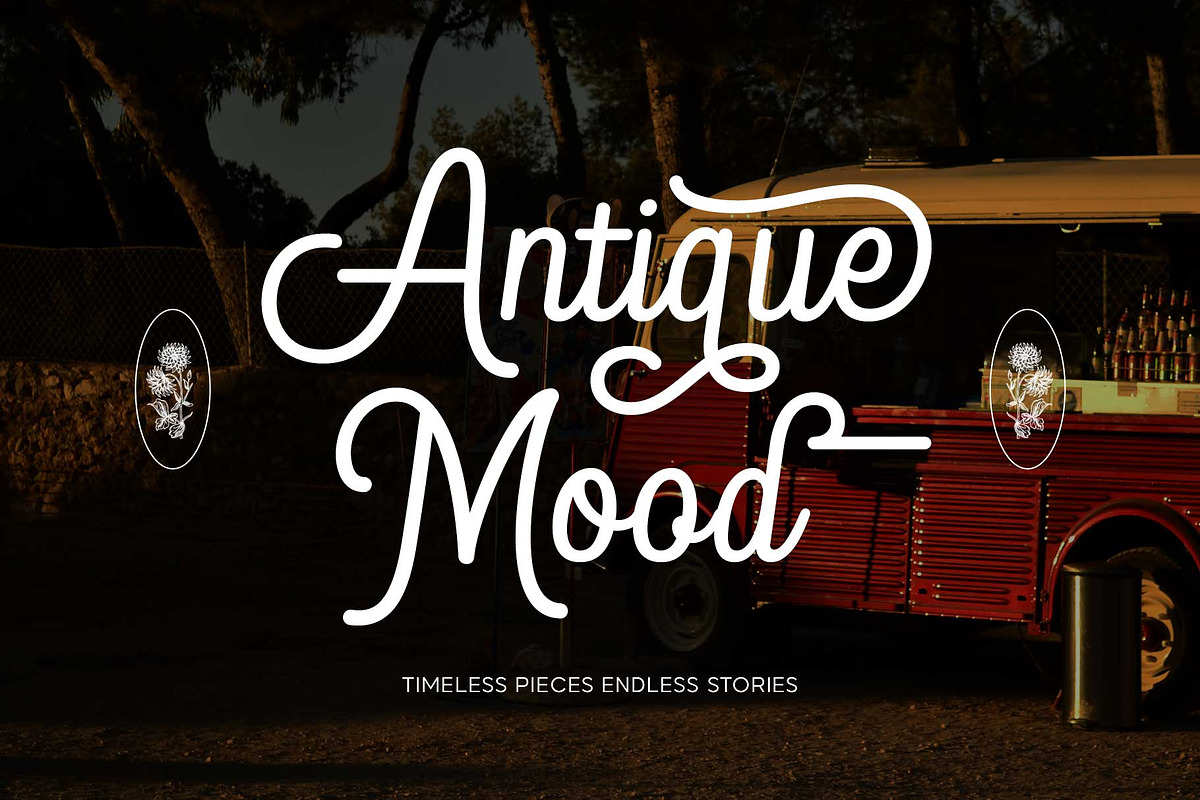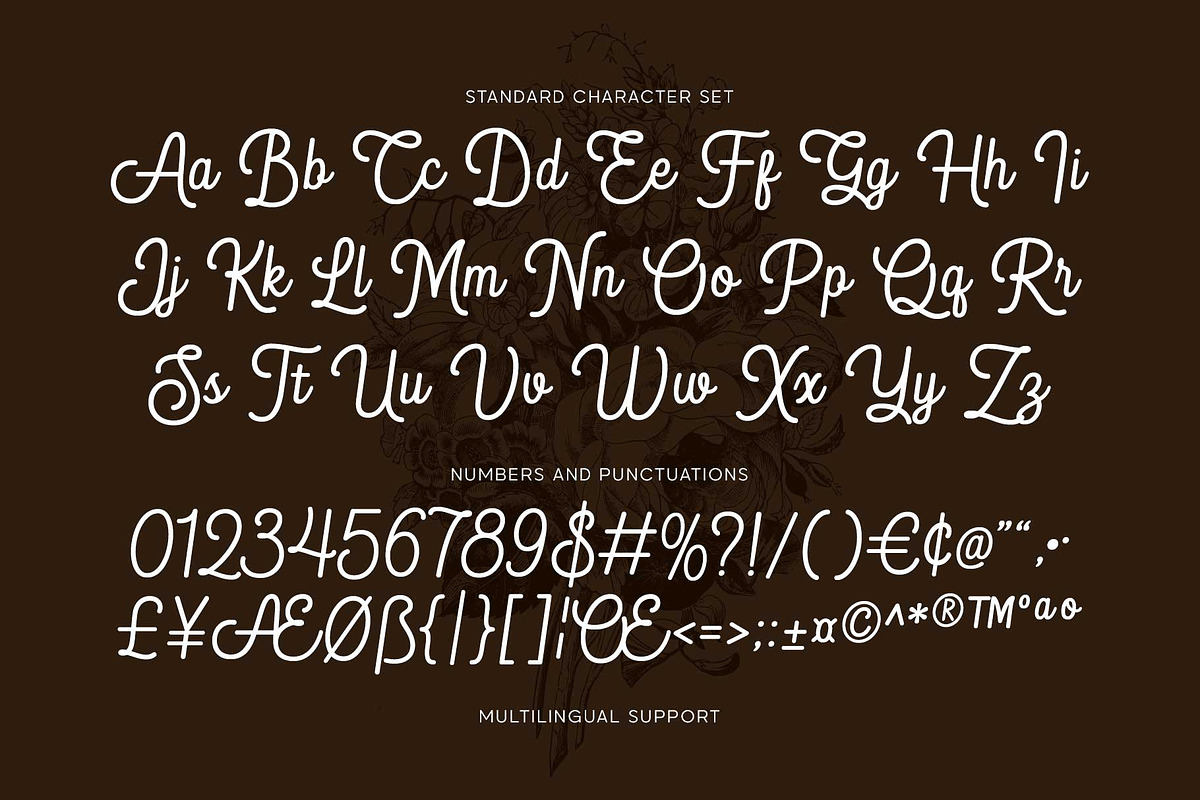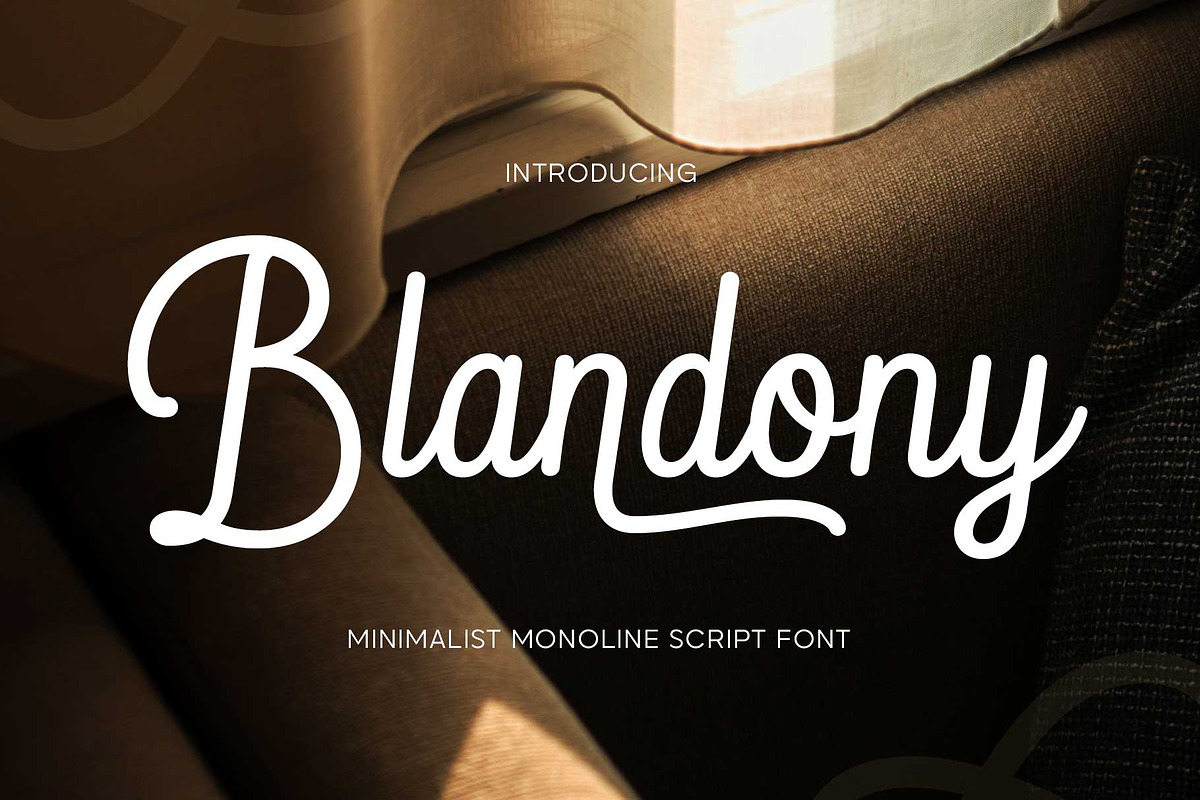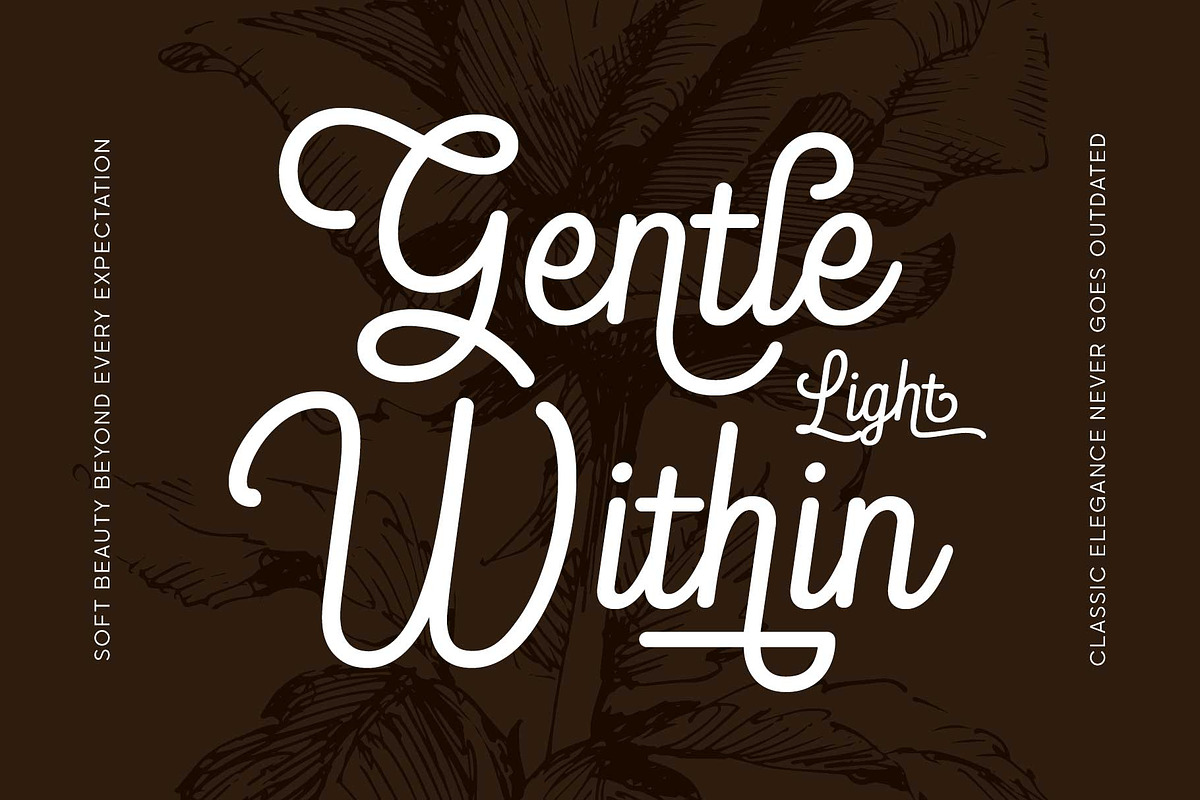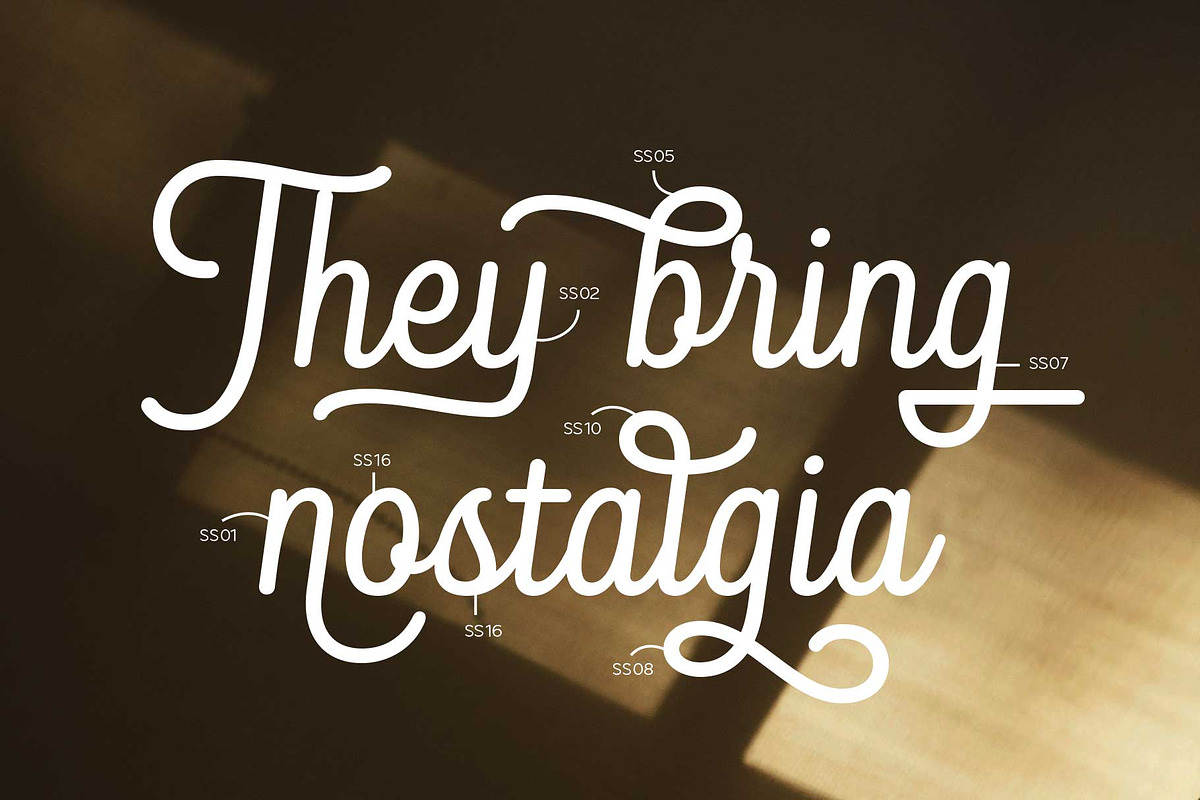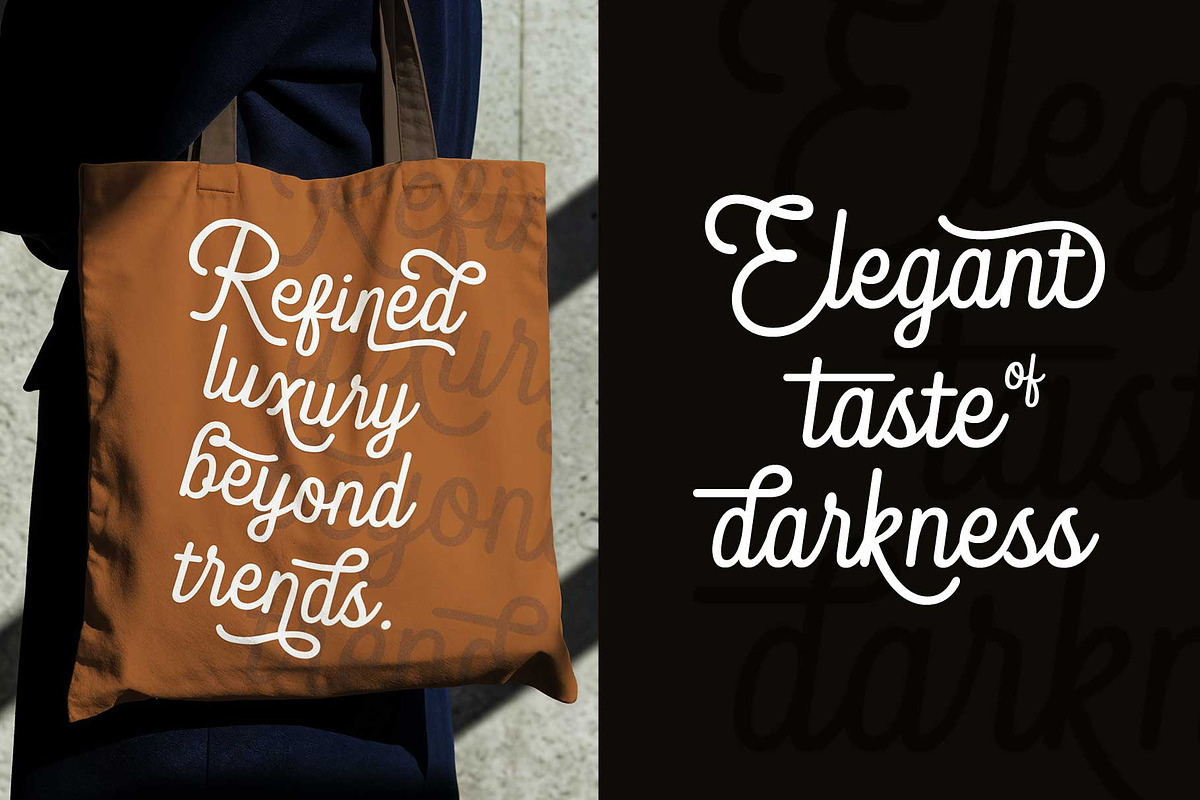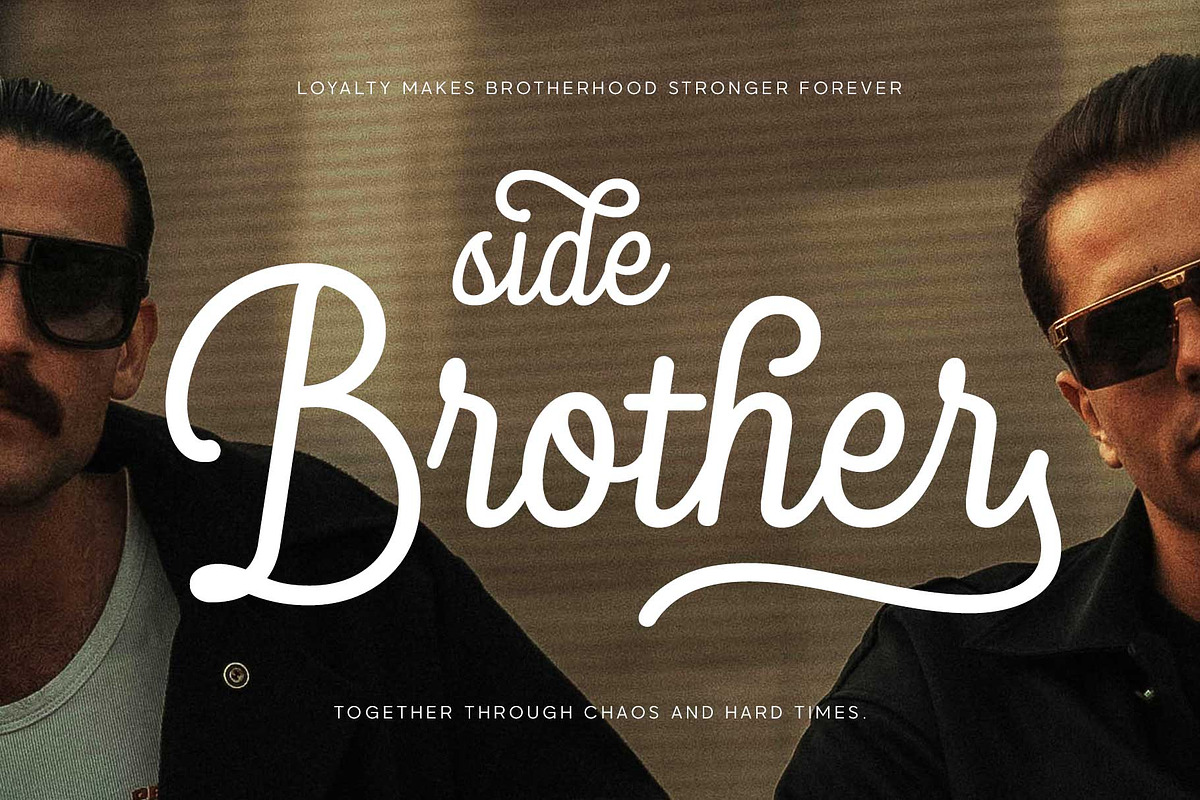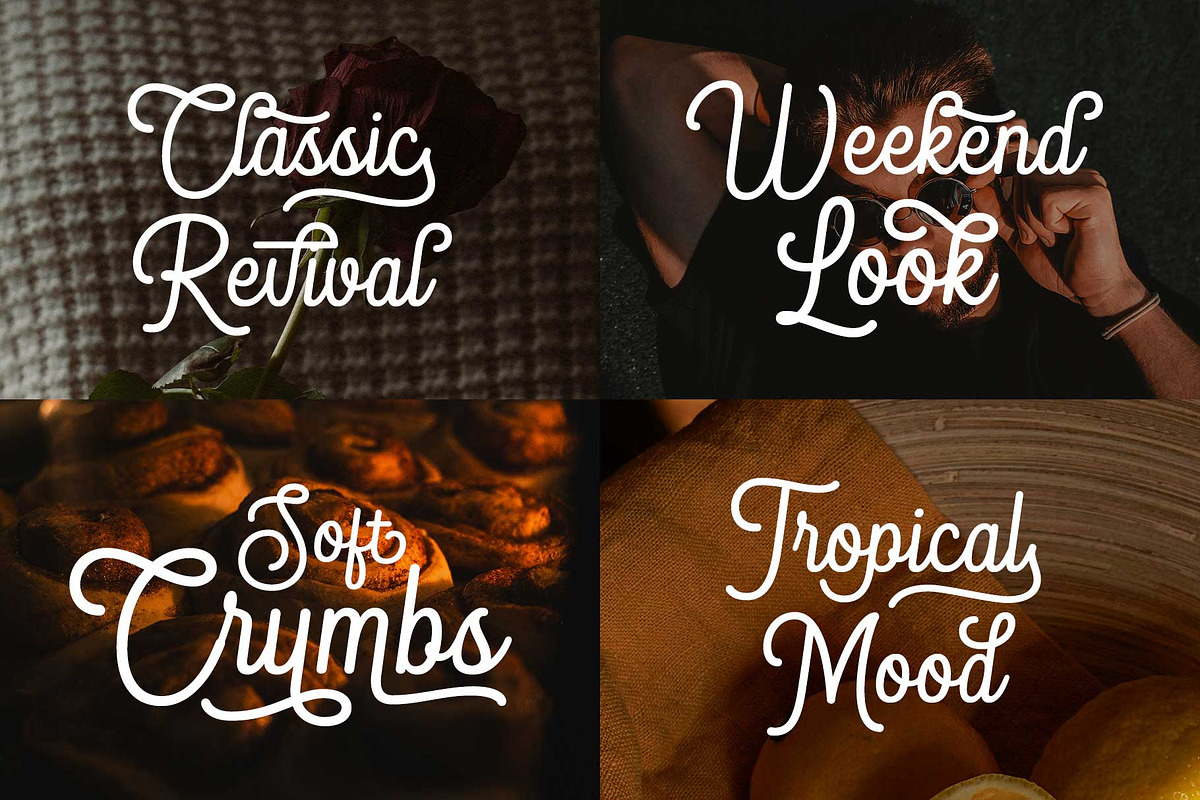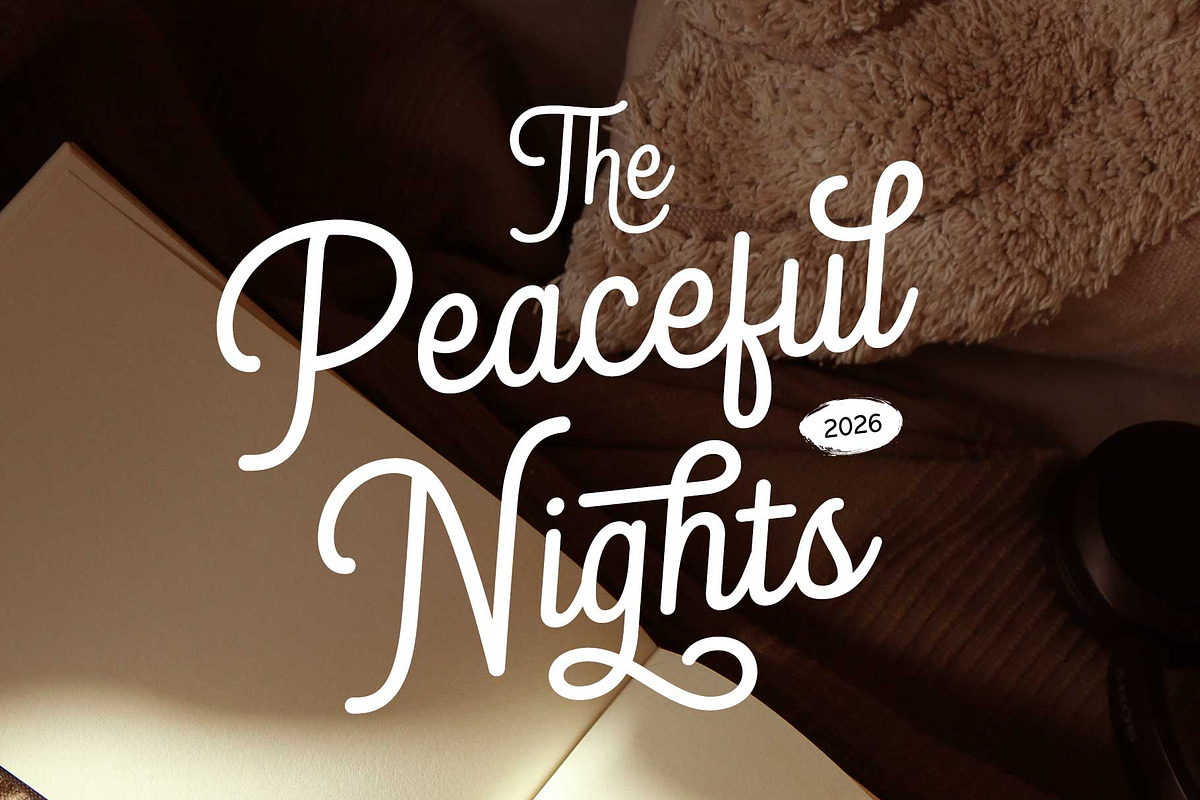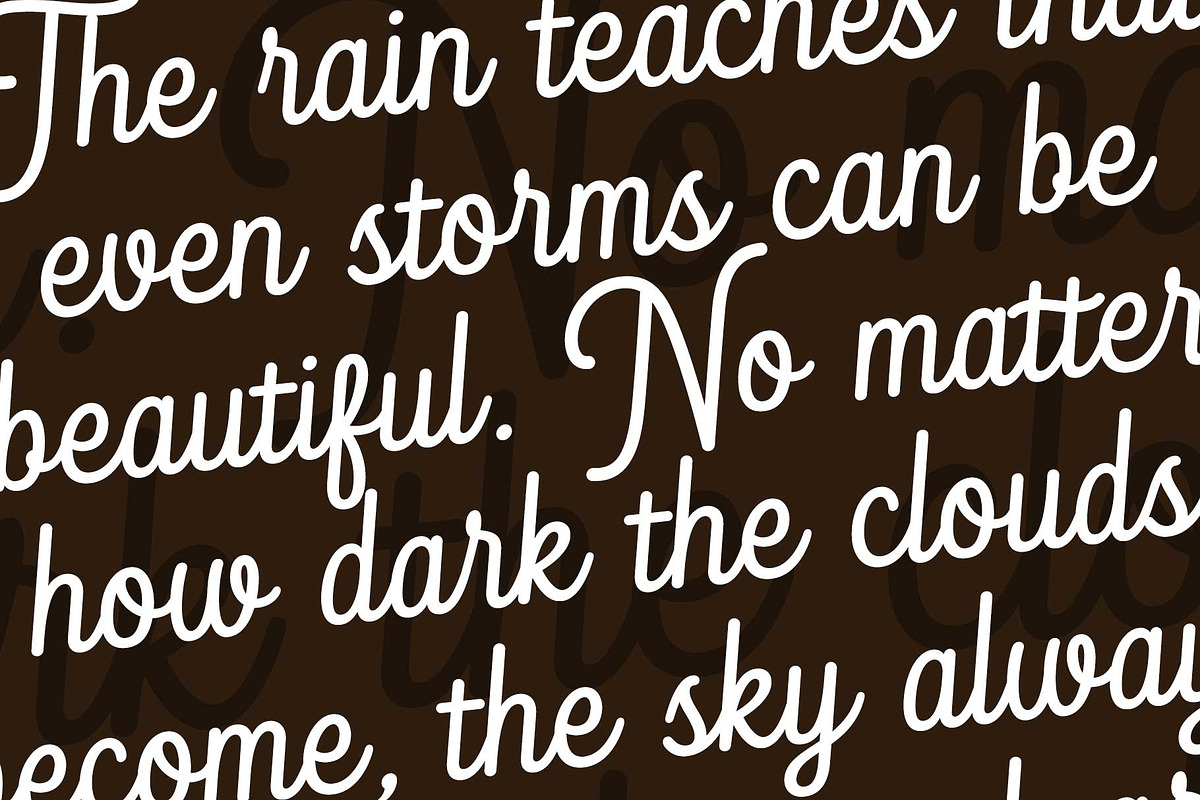
Blandony - Modern Vintage Monoline
Blandony is a modern vintage script font that combines clean minimalist style with elegant organic swirls. Designed with smooth monoline strokes, this typeface brings a soft, stylish, and timeless look inspired by both modern aesthetics and classic vintage lettering. The balanced curves and handcrafted feel make Blandony perfect for branding, logos, packaging, social media, wedding designs, fashion projects, and elegant typography layouts.
Equipped with stylistic alternates and 16 sets of special characters, Blandony gives you the freedom to create unique and expressive lettering compositions with ease. Whether you want a clean modern appearance or a more decorative vintage touch, this font delivers a versatile and refined visual personality for any creative project.
Features include uppercase & lowercase letters, numbers, punctuation, multilingual support, alternates, and OpenType features.